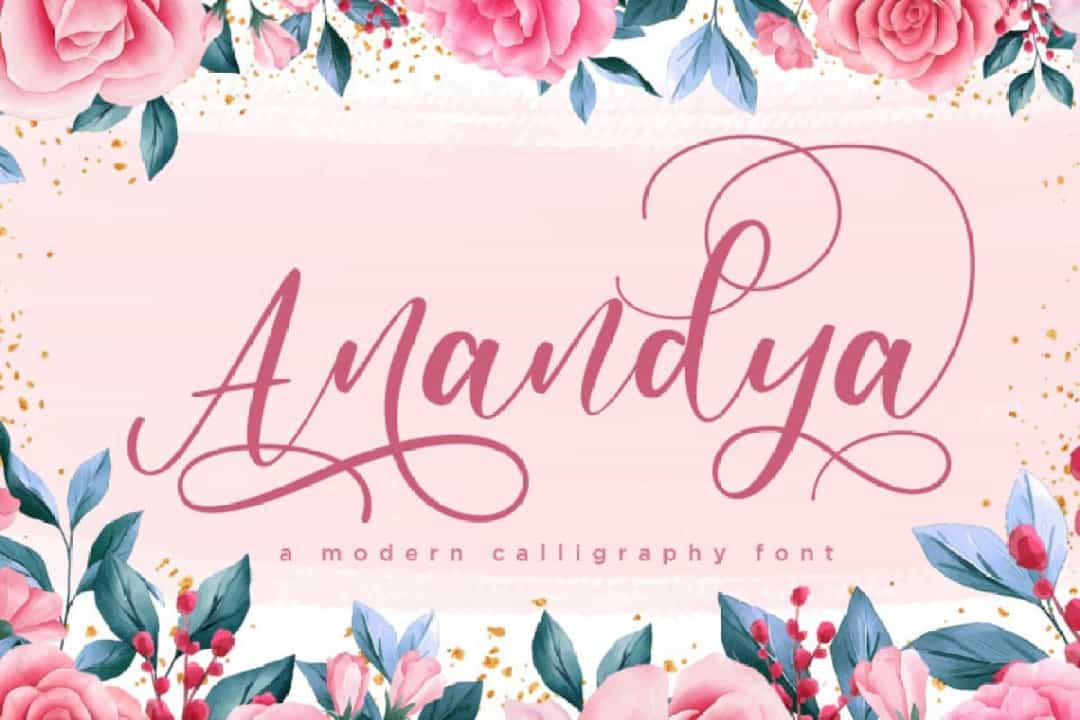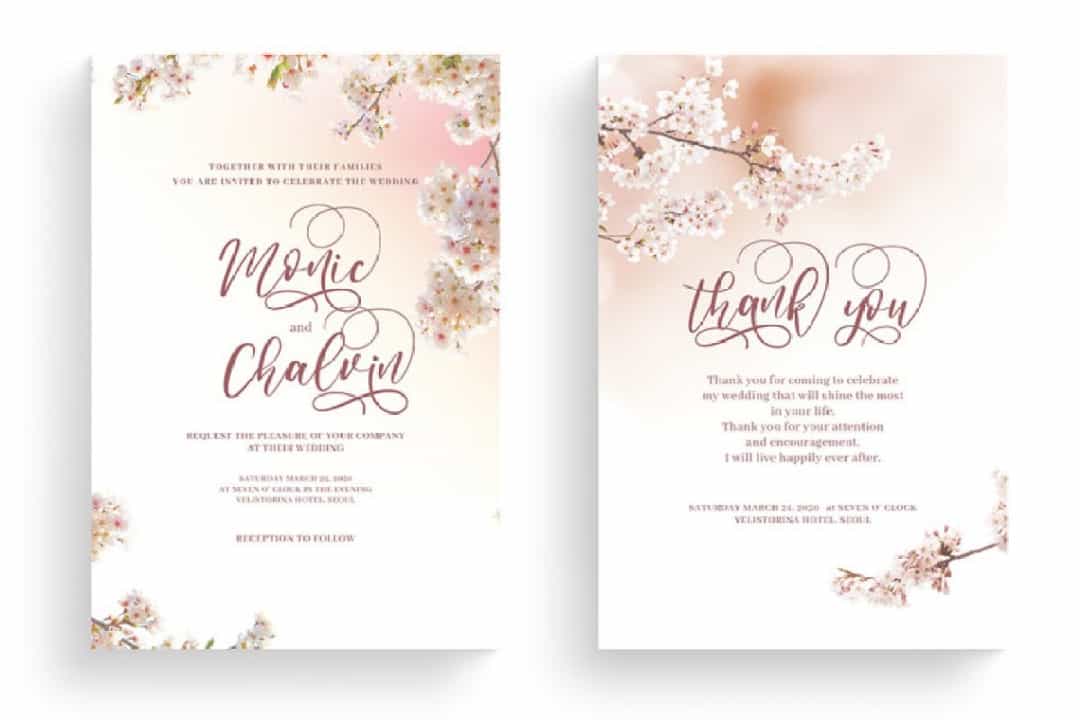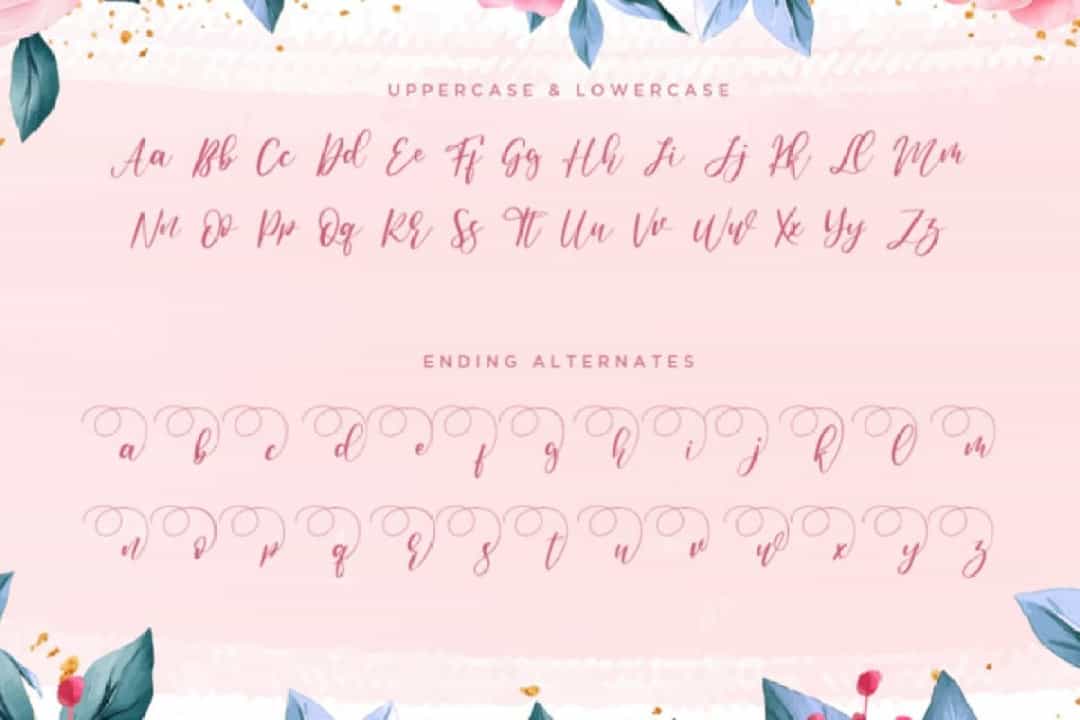
Anandya is a beautiful calligraphy font family that has a touch of elegance for use in any and every design. Discover the classic aesthetic with the contemporary touch when implementing this font to create your designs!